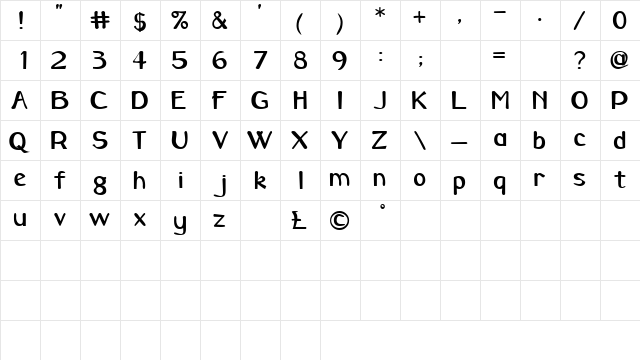
DoronSSK Regular
Design Context for DoronSSK Typeface
DoronSSK is a composed and adaptable typeface that performs quietly and consistently across a wide range of design contexts.